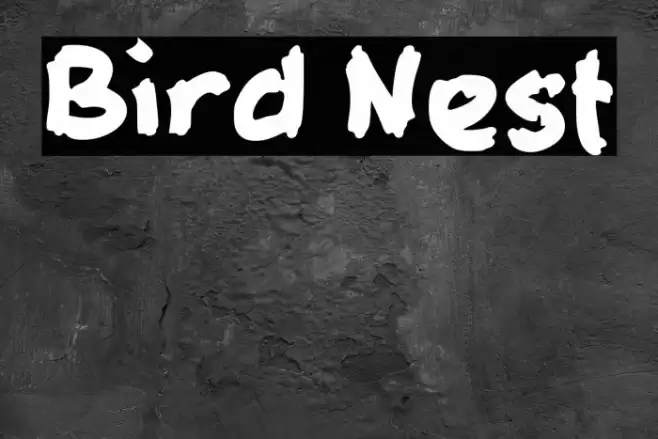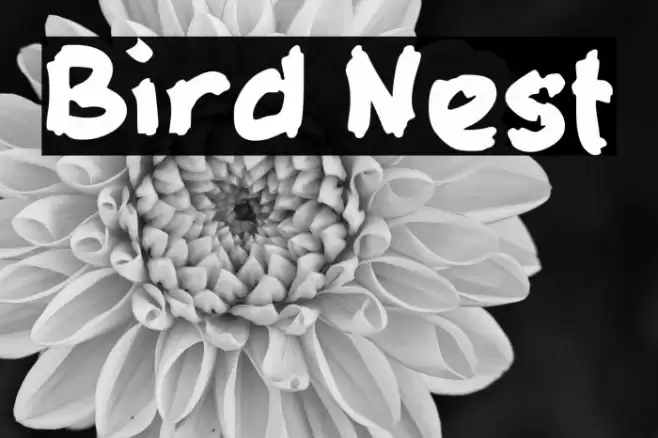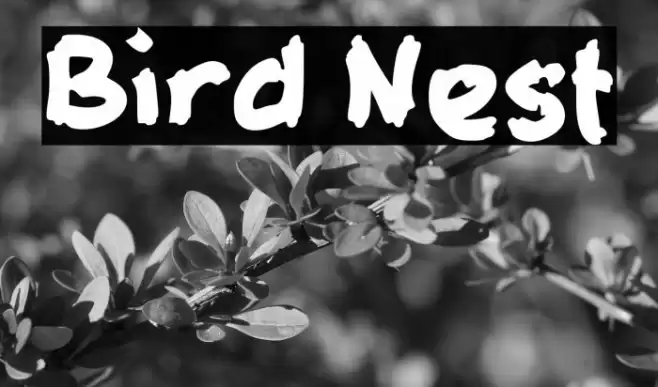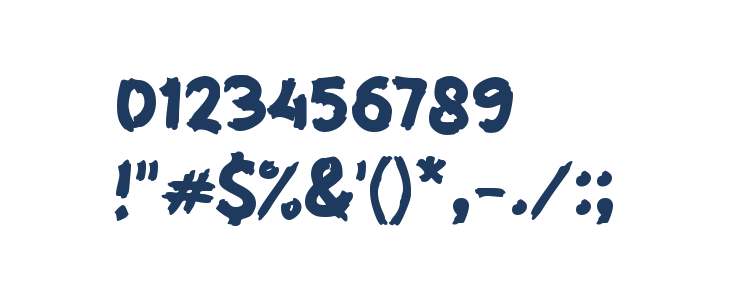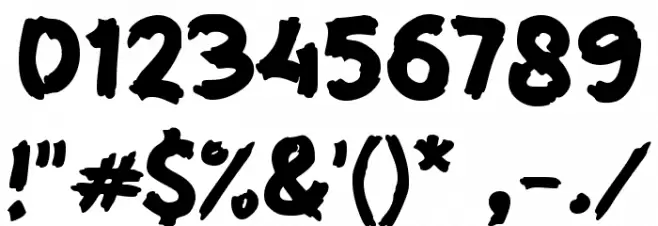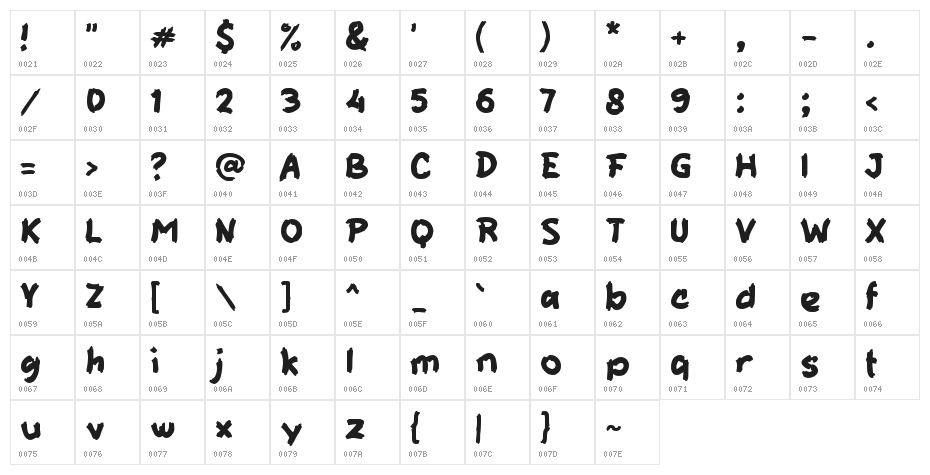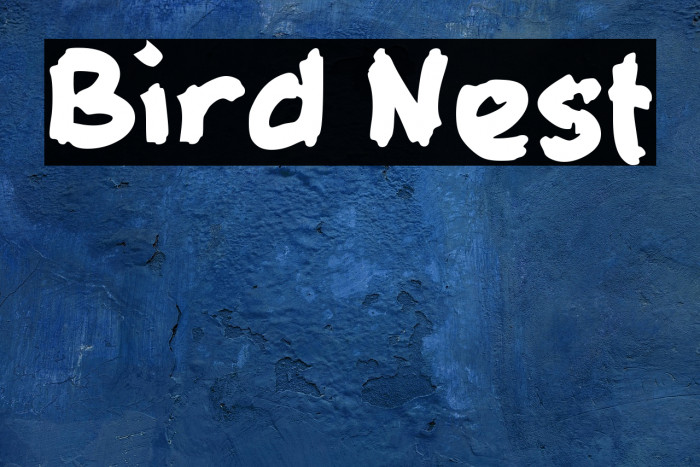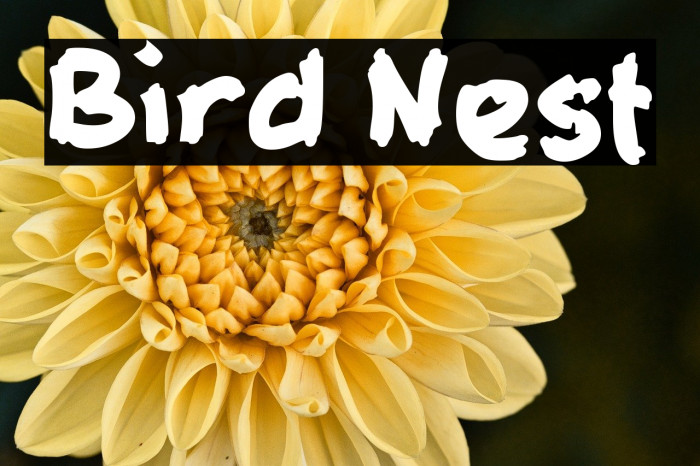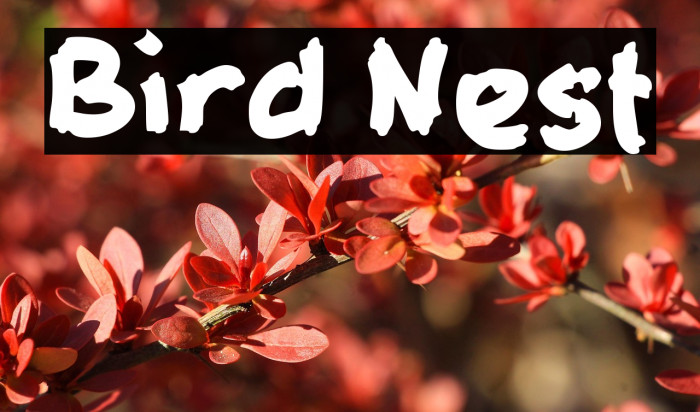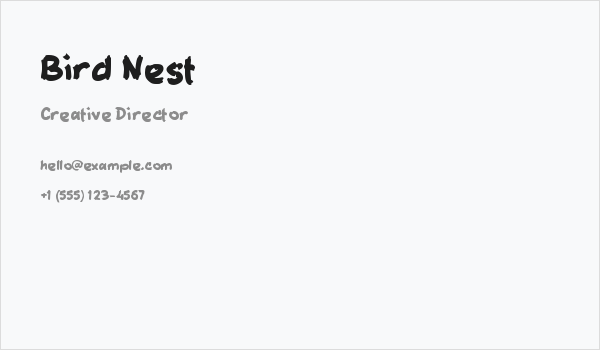
Bird Nest Font
Bird Nest Description
This font features a bold, hand-drawn style with a playful and energetic appearance. The characters are thick and have a brush-like texture, giving them a dynamic and lively feel. The uppercase and lowercase letters maintain a consistent style, with rounded edges and varying stroke widths that add to the font's informal and artistic vibe. The numbers and special characters follow the same design principles, ensuring a cohesive look across all elements. This font is ideal for projects that require a personal touch or a creative flair.
A bold, hand-drawn font with a playful, brush-like texture from Uncategorized fonts.
- Proposed Projects: Perfect for children's book covers, playful branding, creative posters, and artistic social media graphics.